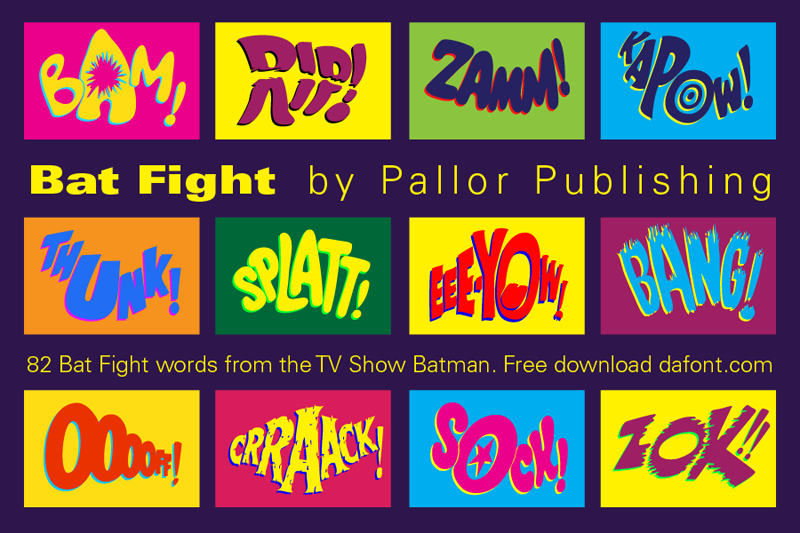
Categories | Dingbats, TV, Movie |
Note by pallorFonts | |
Bat Fight is a collection of 82 Bat Fight words used in the hit 60s TV show Batman, hand traced from the screen using the iPad Pro. |